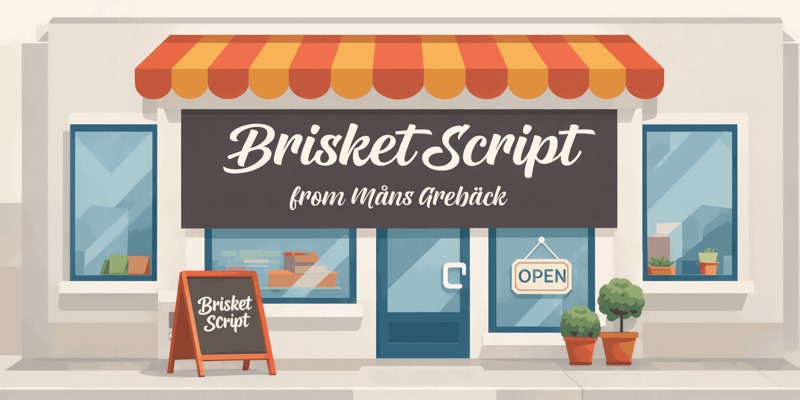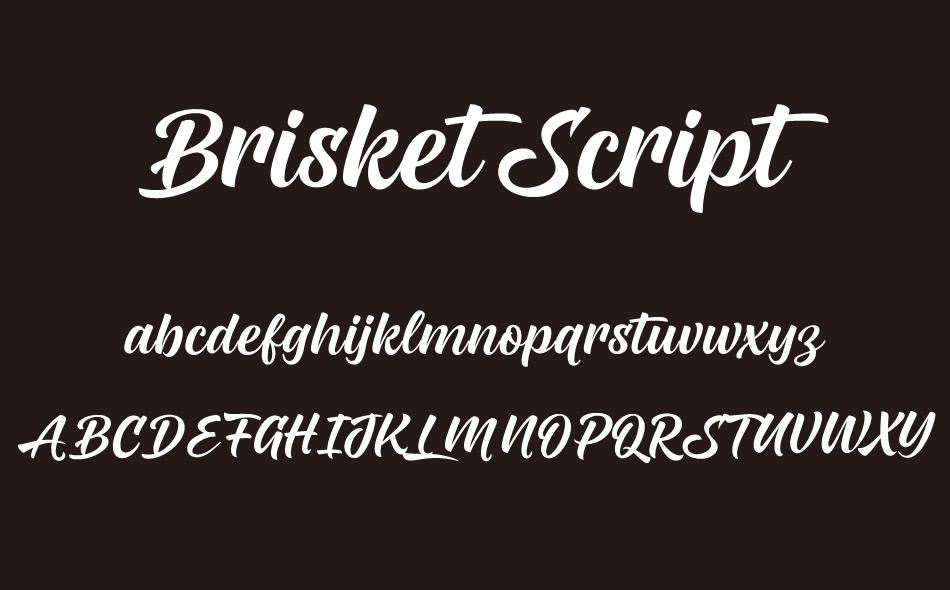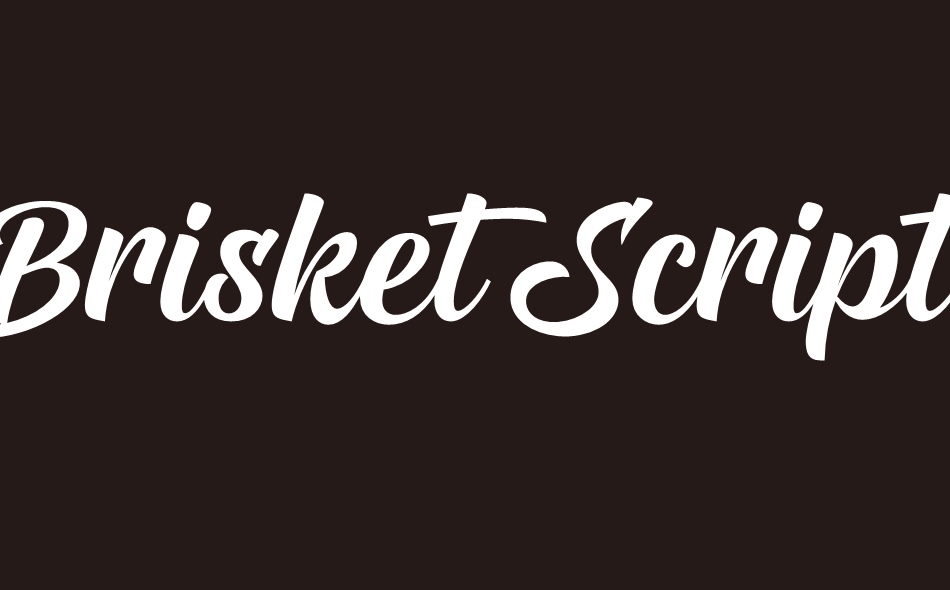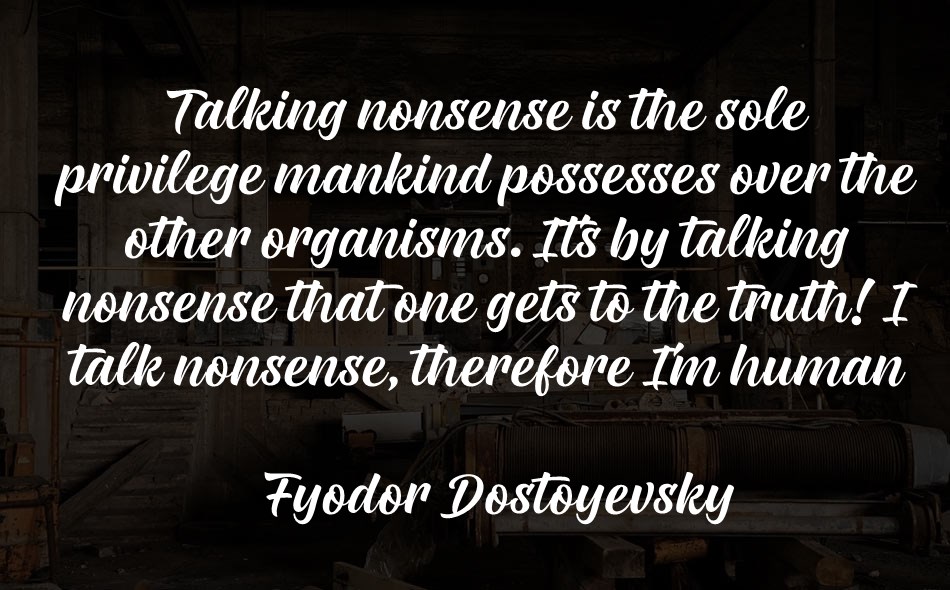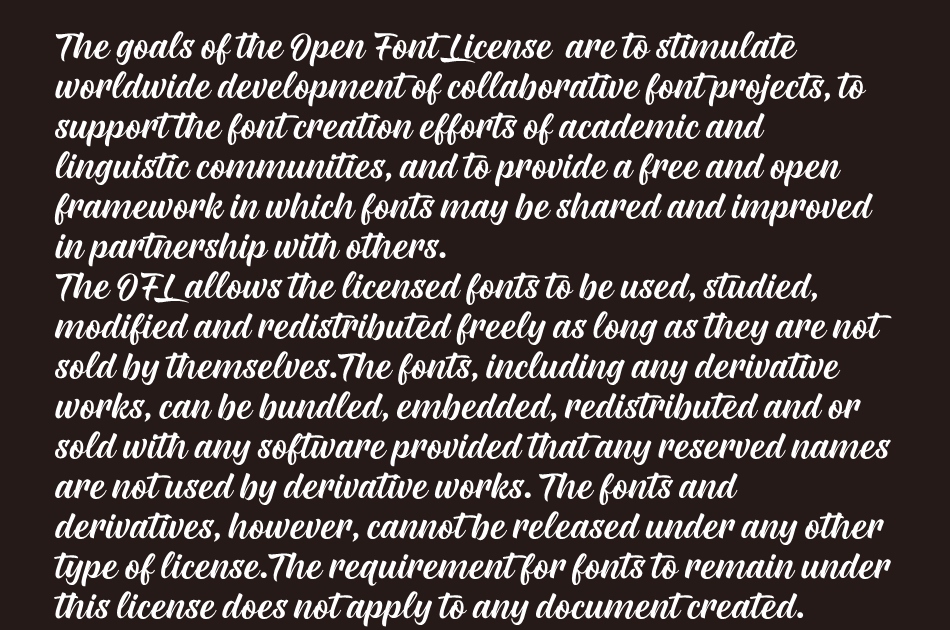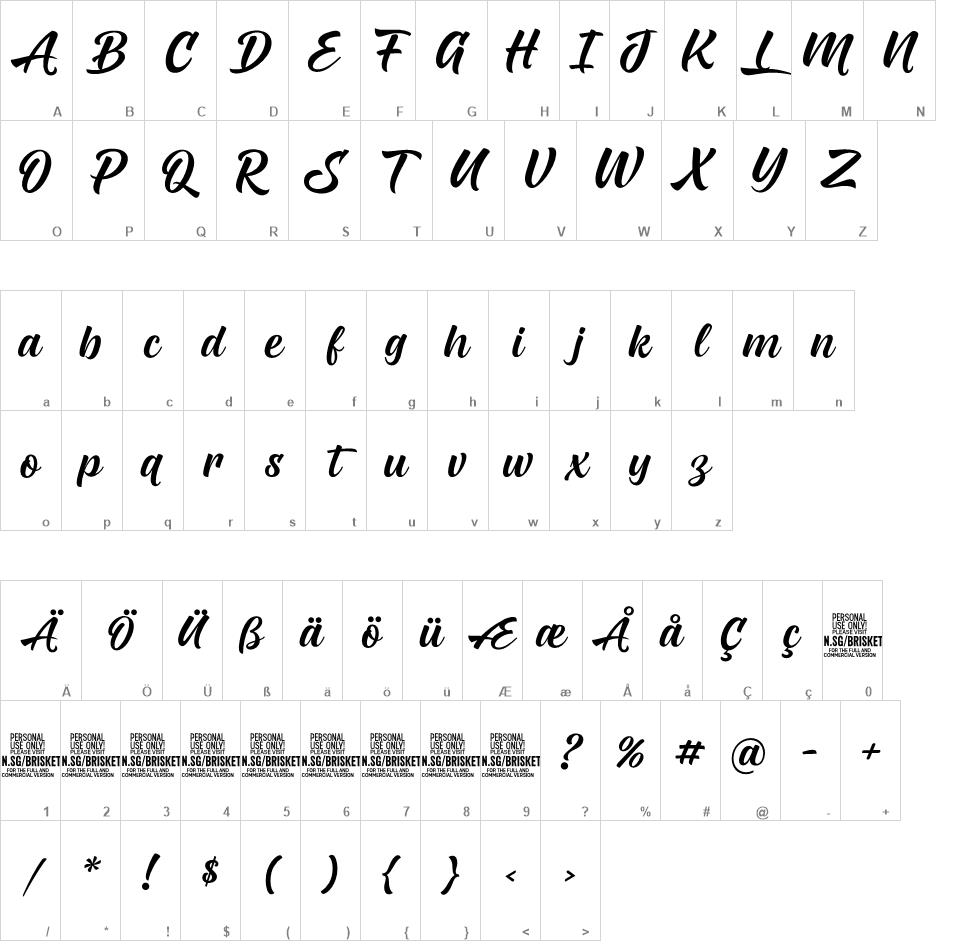
Brisket Script font
Brisket Script is a friendly, flowing script with a warm, handcrafted feel. The lettering is smooth and relaxed, with rounded strokes and a steady rhythm that makes it easy to read while still feeling personal. It carries a casual confidence, like a painted shop sign or a handwritten note pinned in a window.
Brisket Script is a friendly, flowing script with a warm, handcrafted feel.
The lettering is smooth and relaxed, with rounded strokes and a steady rhythm that makes it easy to read while still feeling personal. It carries a casual confidence, like a painted shop sign or a handwritten note pinned in a window. The shapes lean slightly forward, giving the text a sense of movement without becoming rushed or messy.
Brisket Script was drawn to feel natural and honest. It doesn’t try to impress with sharp contrast or exaggerated swashes, but instead focuses on balance and charm. The result is a script that feels familiar, approachable, and quietly expressive.
The font is built with advanced OpenType functionality and guaranteed top-notch quality, containing stylistic and contextual alternates, ligatures and more automatic and manual features; all to give you full control and customizability.
It has extensive lingual support, covering all Latin-based languages, from North Europa to South Africa, from America to South-East Asia. It contains all characters and symbols you'll ever need, including all punctuation and numbers.
Designed by Måns Grebäck, Brisket Script reflects an interest in everyday lettering and the small details that make text feel alive. It is shaped with care rather than force, letting the letters speak in a calm, human voice.